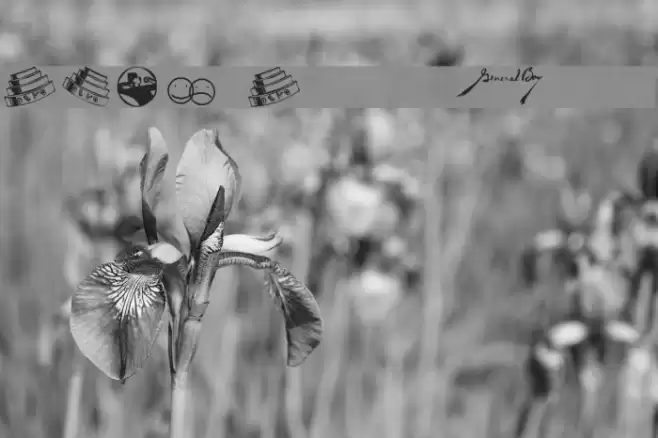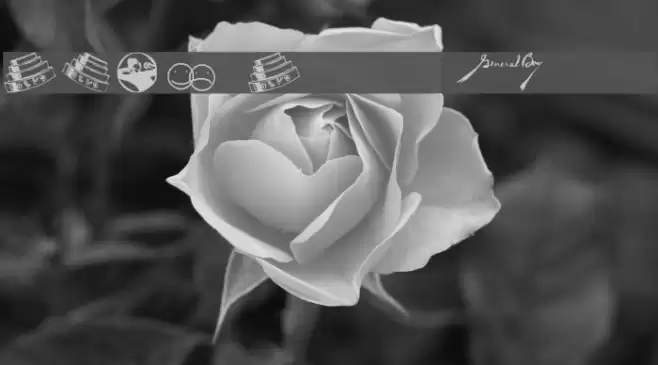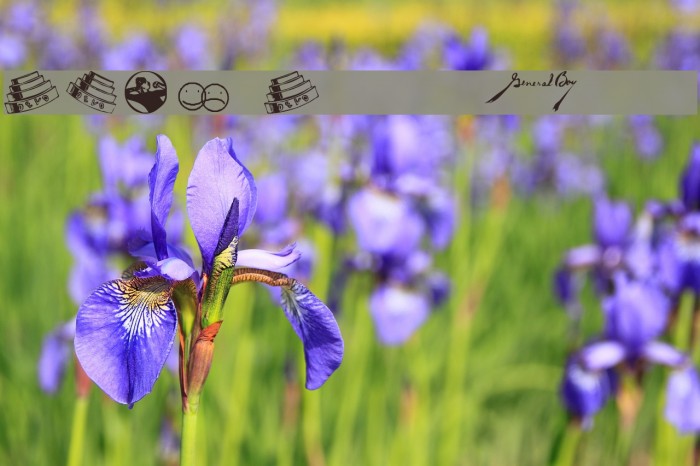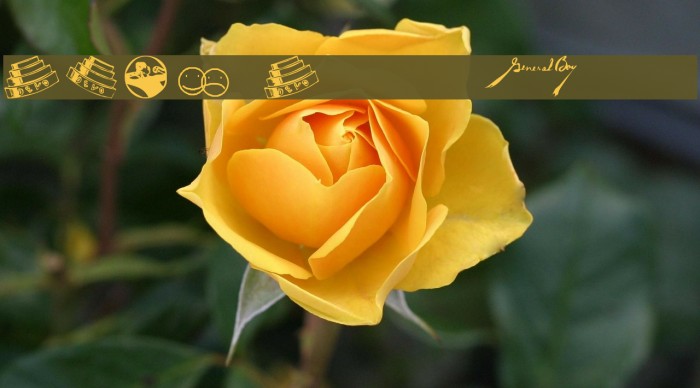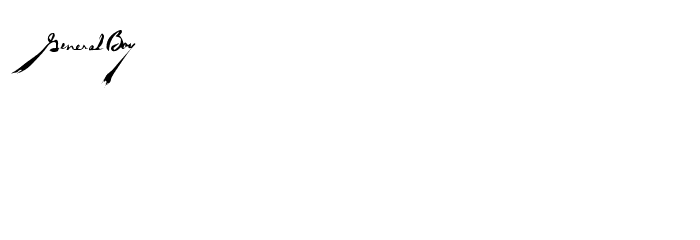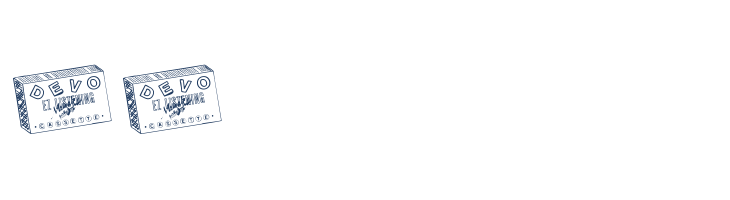
DEVO Dingbats 13 Font
DEVO Dingbats 13 Description
This is a decorative dingbat font featuring a variety of unique and quirky symbols and illustrations. The characters include abstract shapes, stylized figures, and iconic imagery that reflect a playful and artistic style. The designs are bold and distinct, making them suitable for creative projects that require a touch of whimsy and individuality. The font captures a sense of fun and nostalgia, with elements that might appeal to fans of retro or pop culture themes. Each symbol is intricately designed, offering a diverse range of visual elements that can enhance graphic designs, posters, and other artistic endeavors.
A decorative dingbat font with quirky and artistic symbols from Uncategorized fonts.
- Proposed Projects: Ideal for creative projects such as posters, album covers, and graphic design elements that require a unique and playful touch.
- Use Case: Logos, Posters, Artistic Designs